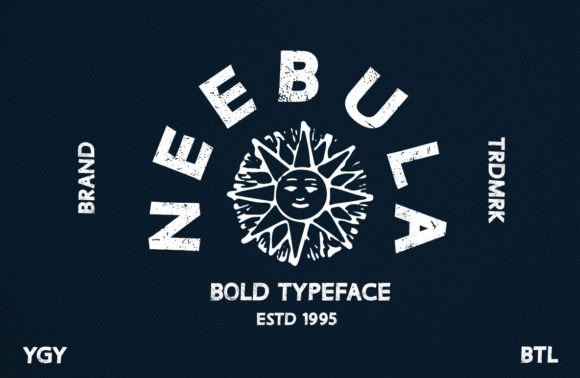
Introducing Neebula Font, the ultimate choice for anyone seeking the best fonts for retro logos. Created by the renowned rulihoki studio, this bold retro display font is guaranteed to make your creations truly stand out. Prepare to be captivated by its unique charm and endless possibilities!
When it comes to making a lasting impression, Neebula Font takes the lead. Its expert design ensures that your creative ideas soar to new heights, making your brand truly unforgettable. Say goodbye to ordinary and hello to extraordinary with this eye-catching font that effortlessly captures the essence of retro aesthetics.
With Neebula Font, you have the power to transport your audience to a different era. Its distinctive style evokes nostalgia, taking your designs back in time while maintaining a modern edge. Whether you're designing a logo, poster, or website, this font effortlessly adds a touch of vintage flair that will leave a lasting impression.
But Neebula Font is not just about aesthetics; it's also about versatility. It offers a unique alternative for display design, allowing you to experiment and push boundaries. Add a touch of personality to your projects with this font that effortlessly blends the old and the new, creating a visual experience that is both captivating and memorable.
We understand that choosing the right font is essential for successful branding. That's why Neebula Font is meticulously crafted to ensure it fits perfectly with your brand identity. Whether you're going for a retro, vintage, or even a futuristic look, this font adapts effortlessly, making it the ideal choice for any creative endeavor.
Don't settle for ordinary fonts that blend in with the crowd. Stand out and make a statement with Neebula Font. Its boldness and uniqueness will grab attention, leaving a lasting impact on your audience. Let your designs speak volumes and tell a story that resonates with your target market.